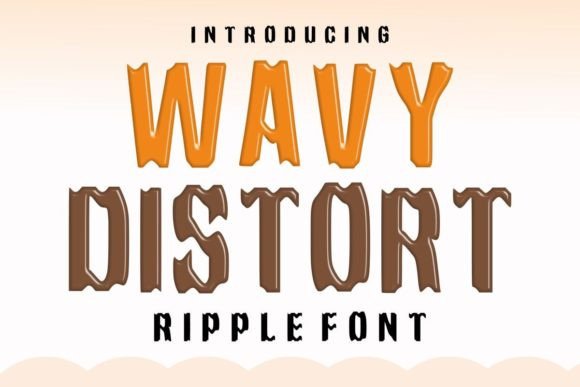
Wavy Distort: The Groovy Ripple Effect Font for Dynamic Visuals
In the vast landscape of digital typography, few typefaces manage to capture a sense of movement and fluidity as effectively as Wavy Distort. This unique display font is not merely a collection of characters; it is a visual experience that mimics the natural undulation of water or the distortion of light through a rippling surface. For designers, marketers, and creatives seeking to inject energy and a retro-modern aesthetic into their projects, Wavy Distort offers a distinctive solution that stands out from static, rigid letterforms. Its ability to transform standard text into a dynamic visual element makes it an invaluable asset for headlines, posters, logos, and various creative applications.
The Aesthetic Philosophy of Fluid Typography
Typography has evolved significantly over the decades, moving from purely functional communication tools to expressive artistic mediums. Wavy Distort sits at the intersection of nostalgia and modern digital capability. It draws heavy inspiration from the psychedelic art movements of the 1960s and 70s, where groovy, melting, and warped visuals were used to represent altered states of consciousness and the vibrancy of life. However, unlike many fonts that simply mimic this style with static curves, Wavy Distort incorporates a genuine sense of kinetic energy. The letters appear to be in a constant state of flux, as if they are being viewed through a lens of disturbed water.
This "ripple effect" is the defining characteristic of the font. It creates a visual tension between readability and abstraction. When used correctly, this tension grabs the viewer's attention immediately. The human eye is naturally drawn to patterns that suggest movement, and the distorted waves within each character trigger this instinct. For professionals looking to break the monotony of clean sans-serifs and traditional serifs, Wavy Distort provides a bold alternative that signals creativity, fun, and a willingness to experiment. It is a font that speaks before the words are even read, setting a tone of excitement and dynamism.
Understanding the Mechanics of the Ripple Effect
The technical execution of Wavy Distort involves complex vector manipulation that simulates organic distortion. Unlike simple wavy lines that might look repetitive, the ripple effect in this font varies across different glyphs, ensuring that no two letters feel exactly the same in their deformation. This variation adds to the charm and uniqueness of the typeface. The distortions are carefully calibrated to maintain legibility while pushing the boundaries of shape recognition. Each curve and angle is designed to flow into the next, creating a continuous wave that travels through the word rather than just affecting individual letters in isolation.
For educators and researchers studying visual perception, Wavy Distort serves as an excellent case study in how context influences reading speed and comprehension. While it may slow down the reading process slightly due to its decorative nature, it significantly increases retention and engagement for short bursts of text. This makes it less suitable for body copy but ideal for moments where the goal is impact rather than information density. The font challenges the viewer to engage with the text on a visual level first, making it a powerful tool for storytelling and branding.
Strategic Applications in Marketing and Design
The versatility of Wavy Distort extends far beyond simple decoration. It is a strategic tool for specific industries and campaigns where capturing attention is paramount. In the realm of advertising, the font acts as a visual hook. Consider a campaign for a summer music festival or a new energy drink; the groovy, liquid aesthetic aligns perfectly with themes of refreshment, freedom, and high energy. By utilizing Wavy Distort for headlines, brands can instantly communicate a vibe that is youthful, energetic, and unconventional.
Sporting Events and Automotive Posters
One of the most effective use cases for this font is in the design of materials for sporting events and automotive promotions. The inherent motion in the letters mirrors the speed and power associated with racing, extreme sports, and competitive athletics. Imagine a poster for a local marathon or a car show; using Wavy Distort for the event title can convey the sensation of speed and adrenaline. The ripples suggest movement, making the static image feel alive. This psychological association helps potential attendees visualize the excitement of the event, increasing the likelihood of ticket sales or participation.
Similarly, in the automotive industry, where sleek lines and aerodynamic forms are celebrated, Wavy Distort complements the subject matter beautifully. It can be used to highlight features like "hydro-dynamics," "speed," or "flow" in promotional materials. The font's ability to distort reality slightly also fits well with futuristic car concepts or electric vehicle branding, suggesting innovation and a departure from traditional norms.
Educational and School Projects
Educators and students often need to create engaging materials that stand out in crowded hallways or digital portfolios. School posters, science fair displays, and project presentations benefit greatly from the unique charm of Wavy Distort. For subjects like oceanography, physics (specifically wave mechanics), or even art history focusing on the psychedelic era, this font provides a thematic consistency that enhances the learning material. It transforms a standard announcement into an interactive visual experience, encouraging students to look closer and engage more deeply with the content.